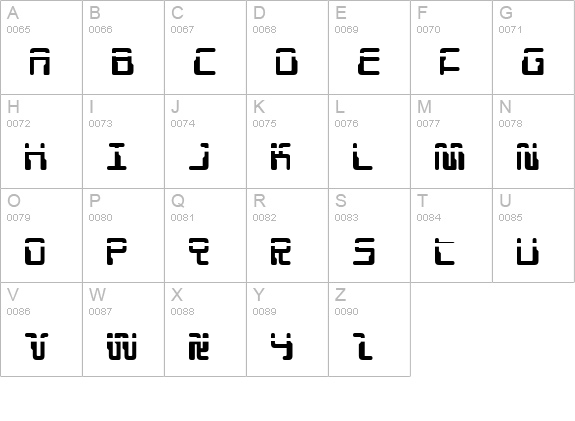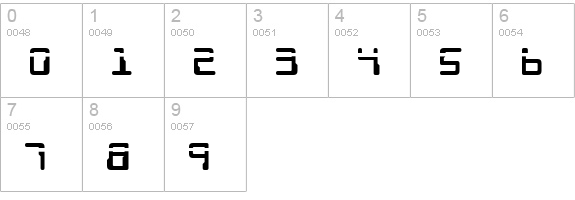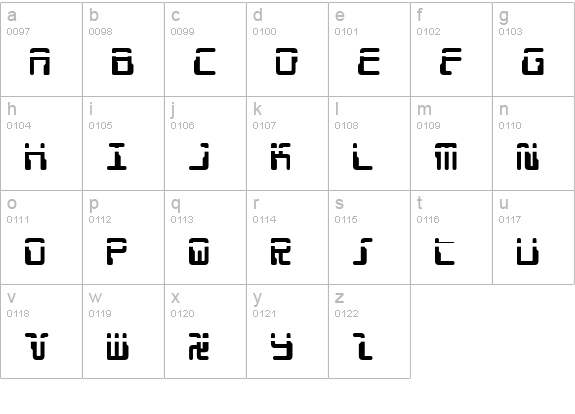
The Droid Lover Laser font is a sleek and modern typeface that is perfect for adding a futuristic touch to your designs. Its sharp lines and geometric shapes give it a cutting-edge aesthetic that is ideal for projects that require a high-tech look. This font is versatile and can be used for a variety of purposes, from branding to web design to print materials. The best part? The Droid Lover Laser font is available for free download at FontsMarket.com! With its bold and eye-catching style, this font is sure to make a statement in any project. Don't miss out on the opportunity to add this striking typeface to your font collection today.